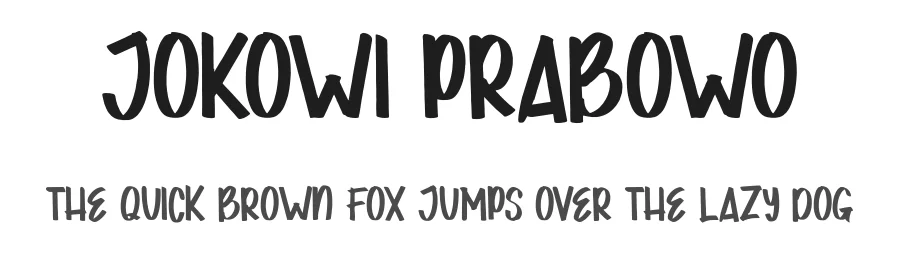
About MRF Let Freedom Ring Font
| Designer | Sabrina Schleiger |
MRF Let Freedom Ring Font is a script font that shines as a display or heading face. Pair it with a clean sans-serif or serif font for body text β the contrast creates a clear hierarchy while the two styles stay balanced and easy to read.